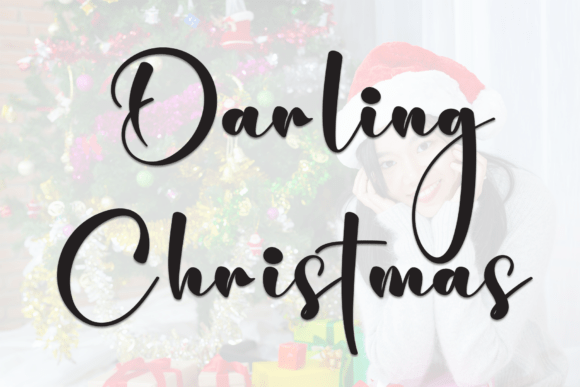
Darling Christmas Font: Elevate Your Designs with Elegance and Flair
Are you looking for a font that adds a touch of sophistication and artistic flair to your designs? Look no further than the Darling Christmas font. This stylish script font is perfect for creating stunning logos, invitations, packaging, and social media graphics that exude contemporary elegance. In this article, we’ll dive into the features and benefits of the Darling Christmas font and explore how it can elevate your designs.
Key Features of Darling Christmas Font
- Fluid Brush Strokes: The Darling Christmas font features fluid brush strokes that give it a natural, hand-painted look.
- Dynamic Curves: The font’s dynamic curves add a touch of elegance and sophistication to any design.
- Expressive Letterforms: Each letterform is uniquely designed to convey a sense of artistic flair and creativity.
- Modern Twist: The font combines traditional calligraphy with a modern twist, making it perfect for contemporary designs.
10 Creative Ways to Use Darling Christmas Font
- Logos: Create a stunning logo for your business or brand that exudes elegance and sophistication.
- Invitations: Design beautiful invitations for weddings, parties, and other special events.
- Packaging: Add a touch of luxury to your product packaging with the Darling Christmas font.
- Social Media Graphics: Create eye-catching social media graphics that showcase your brand’s personality.
- Headings and Titles: Use the font to create stunning headings and titles for your website, blog, or marketing materials.
- Signage: Design eye-catching signage for your business or event with the Darling Christmas font.
- Menus: Create elegant menus for your restaurant or cafe that showcase your brand’s style.
- Posters: Design stunning posters for events, promotions, or advertising campaigns.
- Business Cards: Add a touch of sophistication to your business cards with the Darling Christmas font.
- Stationery: Create beautiful stationery, including letterheads, envelopes, and notecards.
The Benefits of Using Darling Christmas Font
The Darling Christmas font offers a range of benefits that make it an ideal choice for designers and businesses. Some of the key benefits include:
- Unique and Creative: The font’s unique design and artistic flair make it stand out from more traditional fonts.
- Versatile: The Darling Christmas font can be used for a wide range of design projects, from logos and invitations to packaging and social media graphics.
- Elegant and Sophisticated: The font’s elegant and sophisticated design makes it perfect for businesses and brands that want to convey a sense of luxury and refinement.
- Easy to Read: Despite its artistic flair, the Darling Christmas font is easy to read and understand, making it perfect for body text and headings.
Tips and Tricks for Using Darling Christmas Font
To get the most out of the Darling Christmas font, here are some tips and tricks to keep in mind:
- Use it Sparingly: While the Darling Christmas font is stunning, it can be overwhelming if used too much. Use it sparingly to create a focal point in your design.
- Pair it with Other Fonts: Experiment with pairing the Darling Christmas font with other fonts to create a unique and interesting design.
- Adjust the Size and Color: Play around with the size and color of the font to create visual interest and hierarchy in your design.
- Experiment with Effects: Try adding effects, such as shadows or textures, to give the font more depth and dimension.
The Darling Christmas font is a stylish and elegant script font that can elevate your designs and add a touch of sophistication and artistic flair. With its fluid brush strokes, dynamic curves, and expressive letterforms, it’s perfect for creating stunning logos, invitations, packaging, and social media graphics. By following the tips and tricks outlined in this article, you can get the most out of the Darling Christmas font and create designs that are both visually striking and effective.